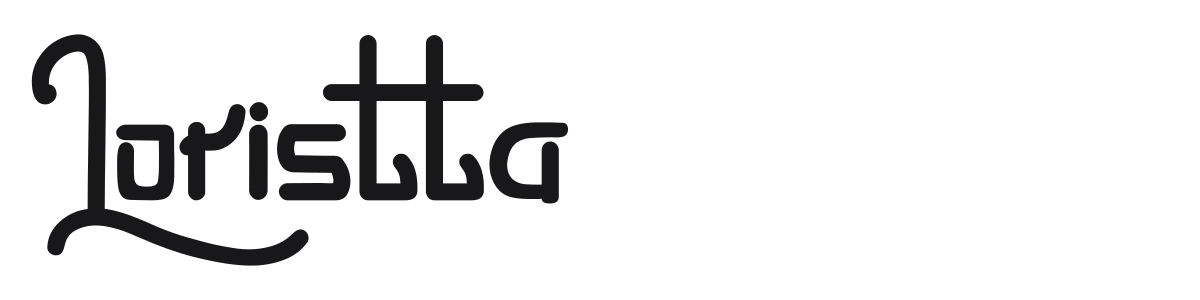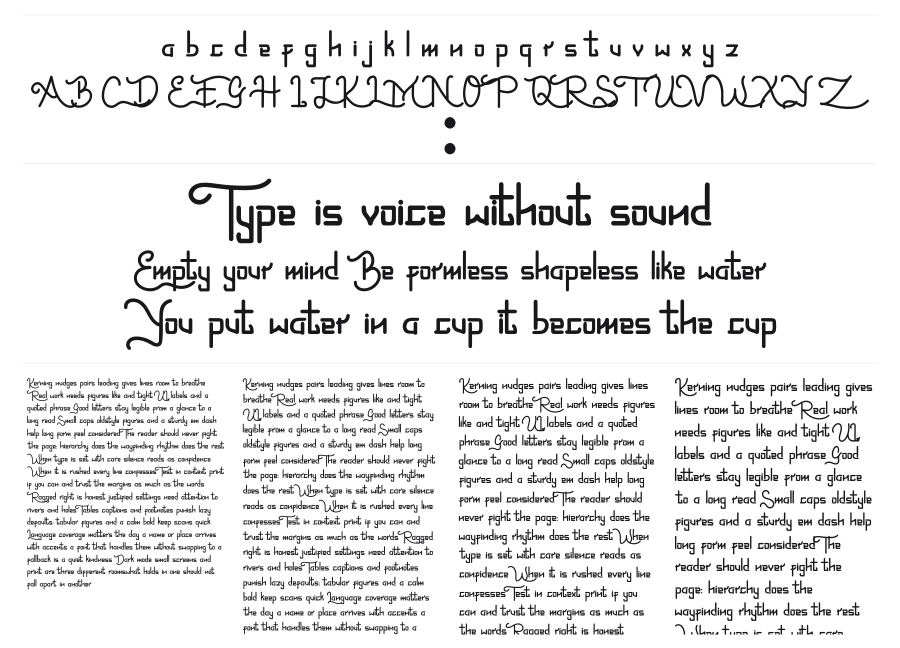
Loristta
by Javatype Studio · Website
Loristta is a bold vintage monoline display font with rounded terminals and a quirky, confident character. Its uniform stroke weight and geometric-meets-organic letterforms borrow from 1970s retro aesthetics while staying contemporary enough for modern fashion and branding work. The strong visual weight carries well across logos, packaging, and apparel graphics.